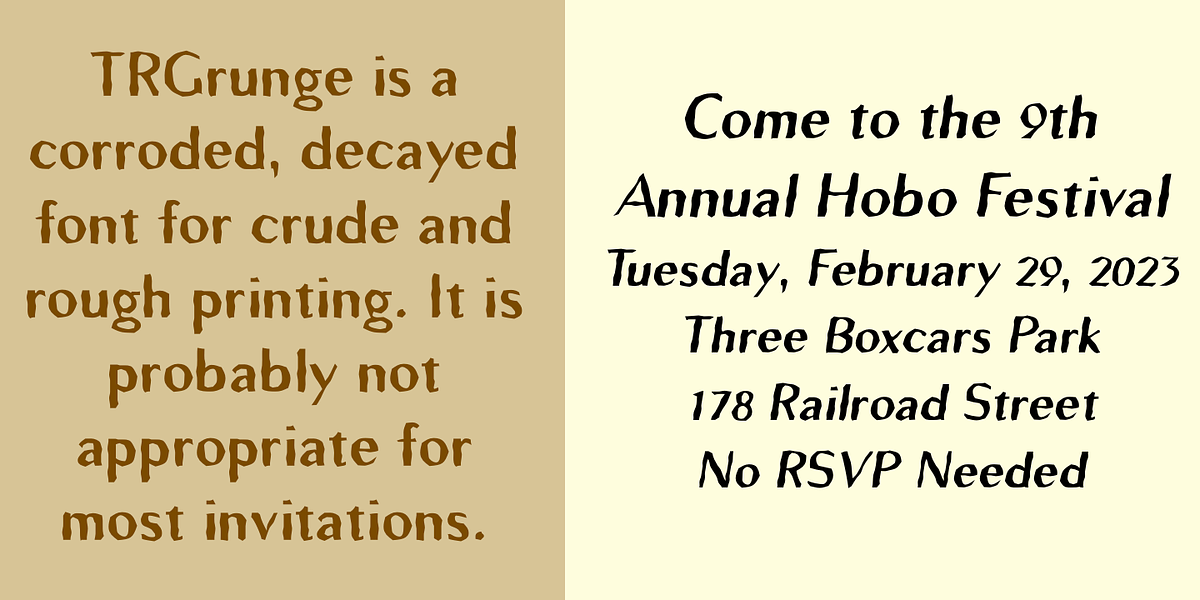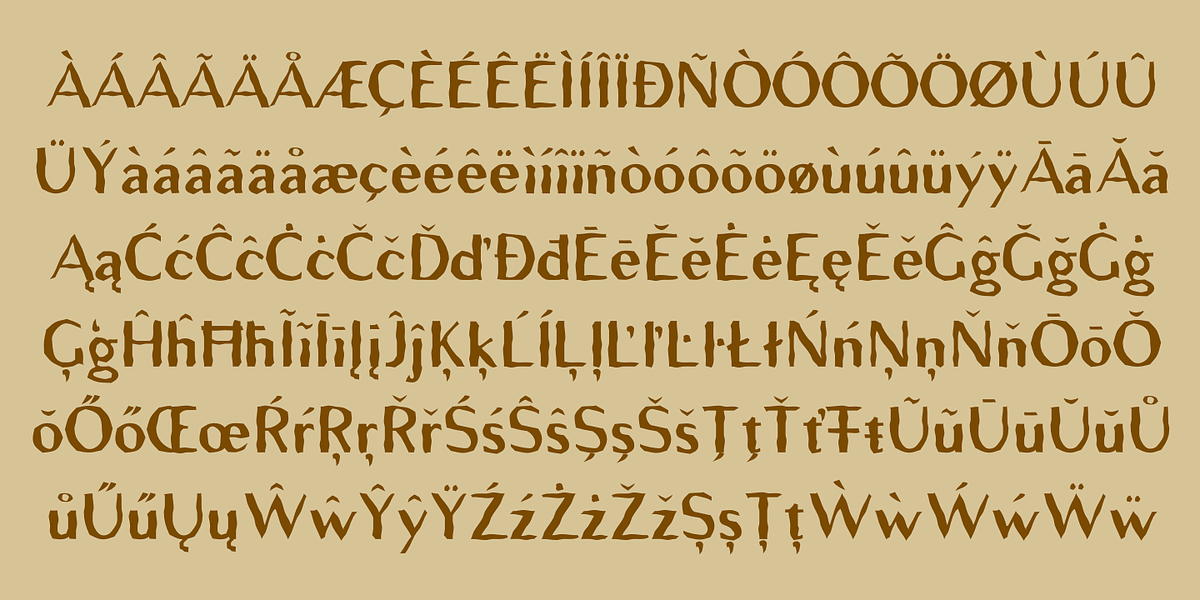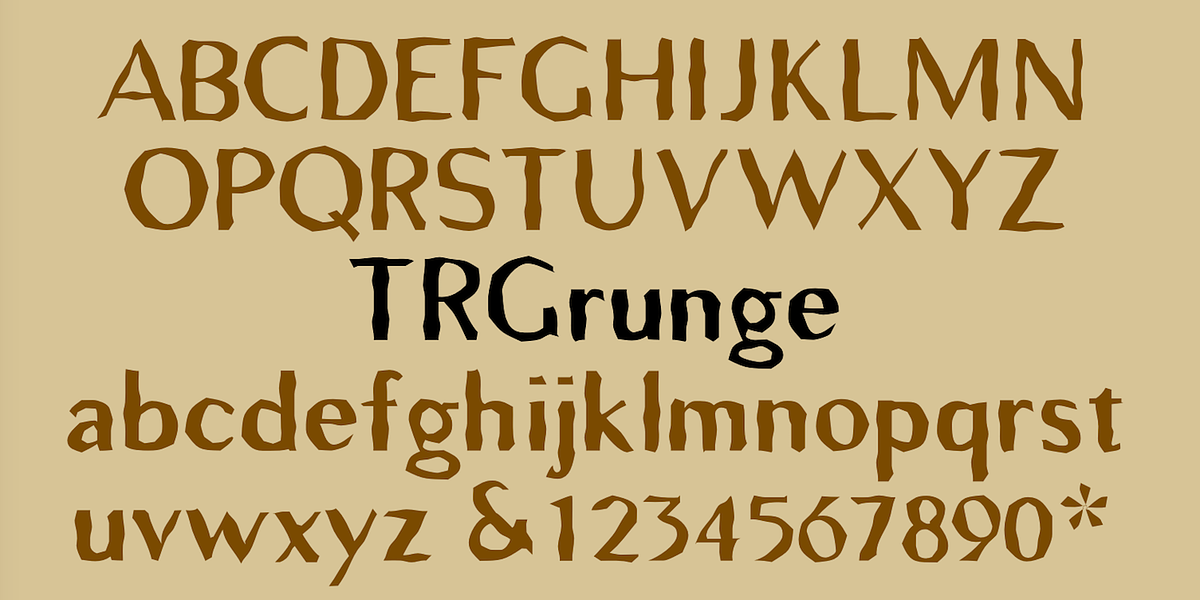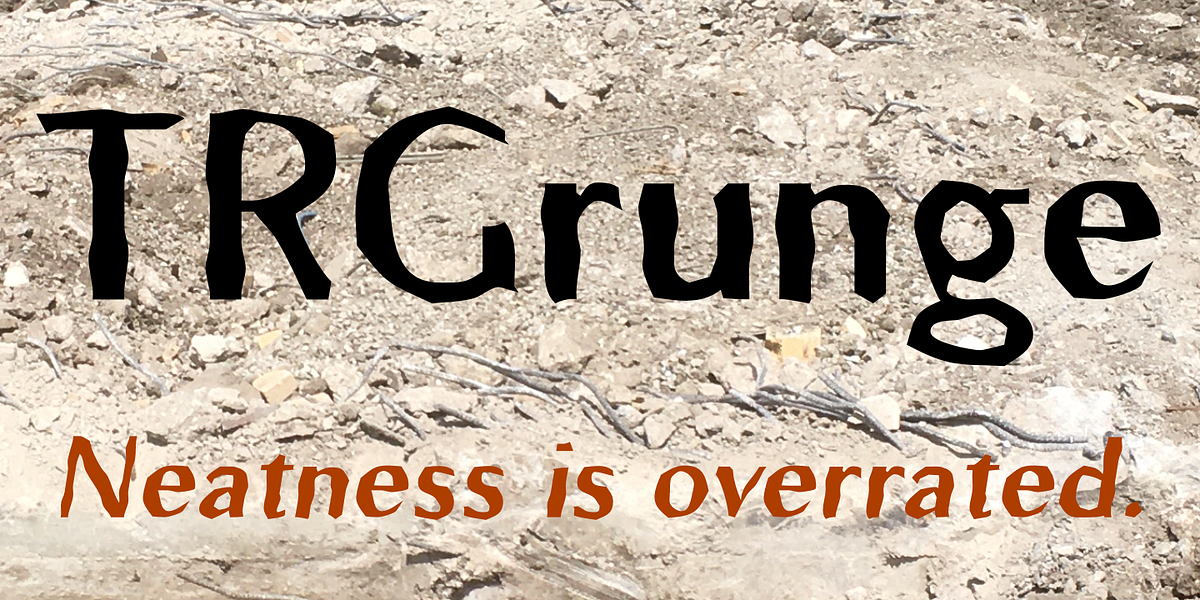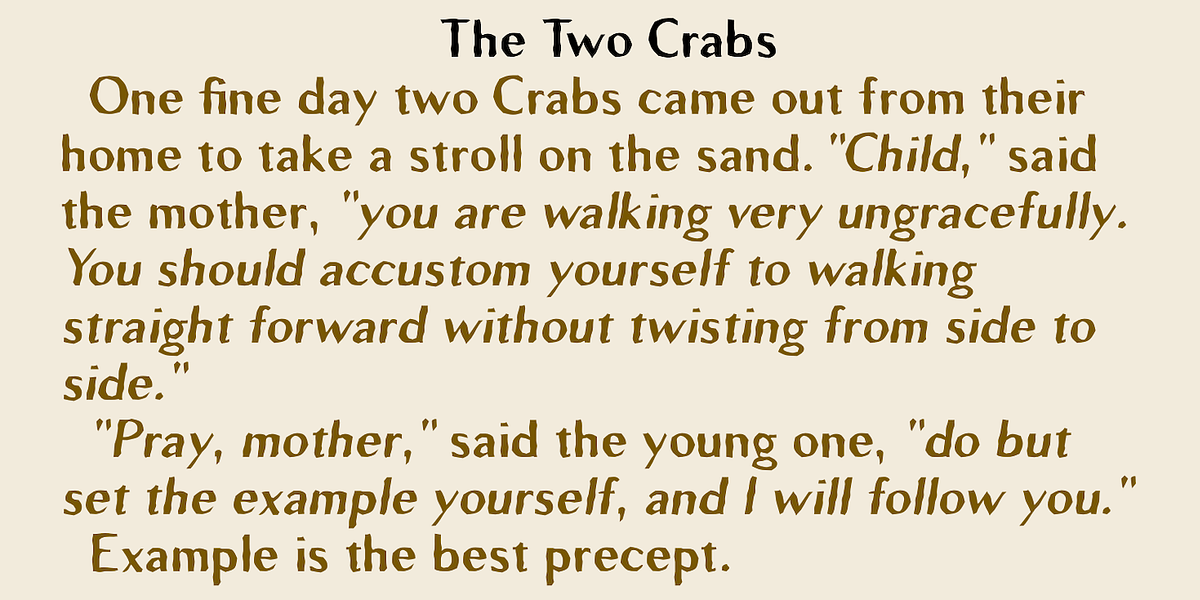
TRGrunge
TRGrunge is a grunge-style sans-serif font characterized by its rough and textured appearance. It was originally created in 1989 and updated in 2021.